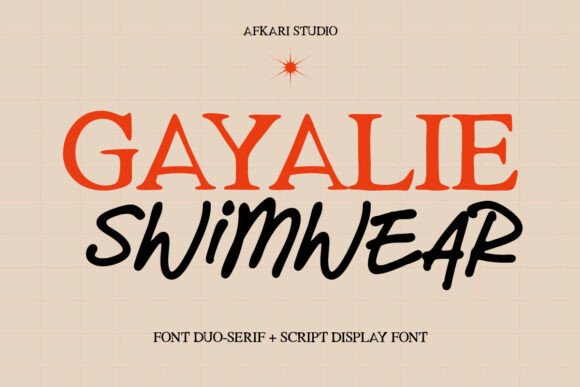
Gayalie Swimwear: A Font Duo for Modern Luxury
Choosing the right typeface for a brand is a foundational decision. It's not just about picking something that looks pretty; it's about finding a voice. A font must convey personality, build trust, and resonate with a specific audience. For designers and entrepreneurs working in fashion, beauty, or lifestyle sectors, this search often leads to a common challenge: finding a typeface that feels both luxurious and approachable. The Gayalie Swimwear font duo was created to solve this exact problem, offering a pre-balanced pairing that marries clean sophistication with organic, feminine charm.
The Anatomy of a Perfect Pairing
At its core, Gayalie Swimwear is a study in contrast and harmony. It consists of two distinct yet complementary typefaces: a refined serif and a flowing script. The serif component is the anchor of the duo. Its letterforms are clean and structured, with a modern sensibility that avoids feeling stuffy or overly traditional. This is the font for headlines, body copy, and any text that requires clarity and a touch of authority. It provides the visual backbone, ensuring your message is legible and professional.
The script font is where the personality shines. It’s a handwritten font with a graceful, flowing character. The strokes have a natural, slightly irregular quality that feels personal and artistic, not robotic. This is the font for emphasis, for "Editor's Notes," for a brand name that needs to feel like a signature. When used together, these two styles create a dynamic font pairing. The serif’s stability allows the script to be expressive without sacrificing overall readability, while the script softens the serif, preventing it from appearing too corporate. This balance is what makes Gayalie Swimwear a versatile premium font choice.
Practical Applications Across Creative Fields
The true value of a display font like this lies in its application. Where does Gayalie Swimwear work best? Its aesthetic is tailor-made for projects that need to evoke a sense of modern luxury, femininity, and relaxed elegance.
Building a Cohesive Brand Voice
A consistent visual language is crucial for brand recognition. Gayalie Swimwear provides a built-in toolkit for achieving this. By using the same two fonts across your website, social media, print materials, and packaging, you create a seamless experience for your audience. This consistency builds trust and professionalism. The serif’s structure ensures your web design remains clean and navigable, while the script adds those memorable, human touches that foster connection. It’s a complete system for developing a strong brand identity without the need to source and test multiple font pairings.
Making the Most of Your Design Assets
When you invest in a commercial font like Gayalie Swimwear, you’re acquiring a versatile design asset. To use it effectively, consider the following practical tips:
1. Evaluate the Project Fit: Does your project call for a blend of elegance and softness? If you’re designing for a corporate law firm, this might not be the right fit. But for a bridal boutique, a tropical travel blog, or a skincare line, it’s an exceptional choice.
2. Test for Readability: Always test the fonts at the sizes they will be used. The serif is designed for clarity, but ensure the script remains legible in shorter phrases and doesn’t become overly decorative when used small.
3. Leverage the Contrast: Don’t just use them side-by-side. Use the weight and style difference to create a clear visual hierarchy. Let the serif do the heavy lifting for information, and let the script be the accent that adds flair.
Ultimately, Gayalie Swimwear is more than just a pretty typeface. It’s a strategic tool for designers and brand builders. It solves the common problem of font pairing by offering a ready-made, balanced solution that feels both luxurious and accessible. Its strength lies in its ability to adapt to a wide range of applications—from a bold headline on a website to a delicate note on a wedding invitation—while maintaining a consistent and stylish voice. For any project that aims to communicate modern femininity and polished ease, this serif font and script font duo is a reliable and elegant starting point.